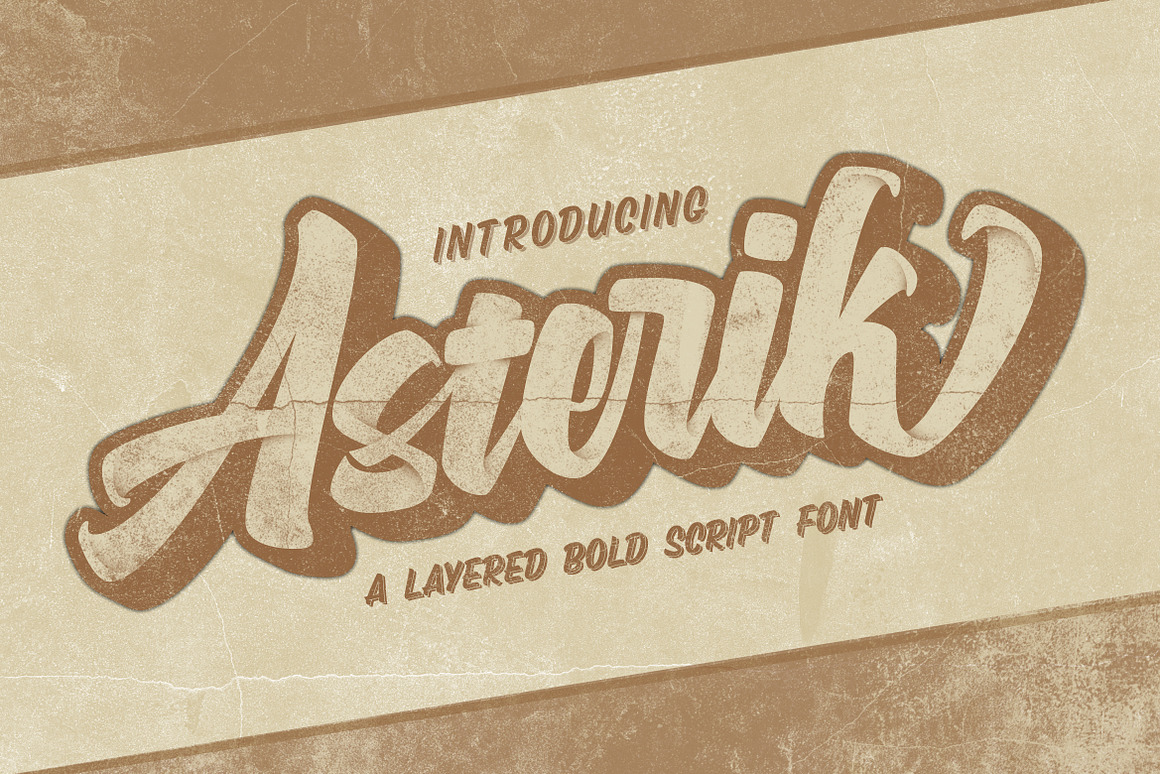
ASTERIK || Layered Bold Script
ASTERIK Layered Bold Script Font is perfect for wedding invitations, luxury brand logos, fashion magazine headlines, elegant packaging designs, beauty product labels, and premium greeting cards. This sophisticated typeface works exceptionally well in high-end restaurant branding, cosmetic advertisements, and romantic event stationery.
What makes ASTERIK Layered Bold Script Font so exciting is its innovative layered design system that allows for stunning multi-dimensional typography effects. The font combines elegant script letterforms with bold weight variations, creating dramatic visual impact while maintaining exceptional readability. Its flowing curves and sophisticated swashes demonstrate masterful calligraphic craftsmanship that elevates any design project to premium status.
ASTERIK Layered Bold Script Font comes in multiple layered components including Base, Shadow, Outline, and Decorative layers. The font family also features extensive stylistic alternates, contextual ligatures, and ornamental flourishes that provide unlimited creative possibilities for sophisticated typographic compositions.
The font's carefully balanced proportions ensure optimal performance across various media applications, from large-scale environmental graphics to delicate invitation designs. Professional designers appreciate its comprehensive OpenType features, including swash alternates, stylistic sets, and contextual substitutions that enhance creative expression.
ASTERIK Layered Bold Script Font has quickly established itself as a go-to choice for designers seeking elegant script solutions with modern functionality. Its unique layered architecture allows for endless customization possibilities, making it an essential tool for creating distinctive, memorable designs.